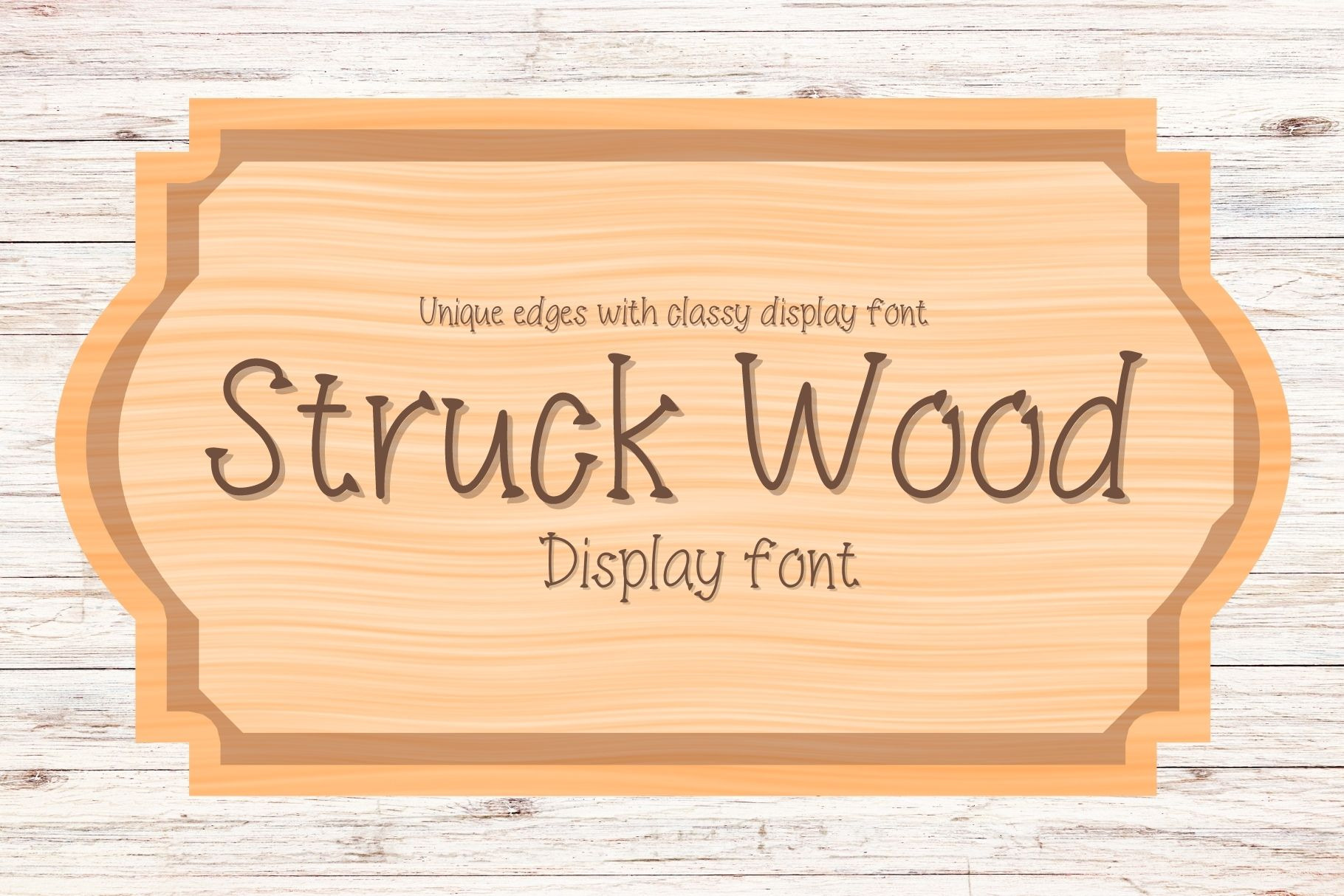
Struck wood Display font
Struck Wood Display is a versatile font that is perfect for a wide range of design projects, including those that involve the use of Cricut machines. This font is available in both OTF and TTF formats, making it easy to use with a variety of design software, including Cricut Design Space.
One of the standout features of Struck Wood Display is its unique, vintage-inspired appearance, which makes it perfect for use in wedding invitations, signage, and other design projects that require a more rustic or vintage look. The font has a rough and textured appearance that gives it a handmade, artisanal feel, making it ideal for designs that require a more organic look.
When it comes to design projects that involve the use of Cricut machines, Struck Wood Display is a great choice for creating custom designs and typography. Its bold and impactful style, combined with its textured appearance, is sure to make a statement and leave a lasting impression.
Struck Wood Display is also a great choice for those who are looking for a font with tails or a script font SVG. The font features a range of stylistic alternates and ligatures that allow you to customize the font to suit your needs. Whether you're looking for a calligraphy font, a handwritten font, or a cursive font, Struck Wood Display has you covered.
Overall, Struck Wood Display is a must-have font for anyone looking to create impactful and memorable designs. Whether you're working on a wedding invitation or creating custom typography for a project, this font is sure to meet your needs. With its unique style and versatile design, Struck Wood Display is a font that you'll turn to time and time again.